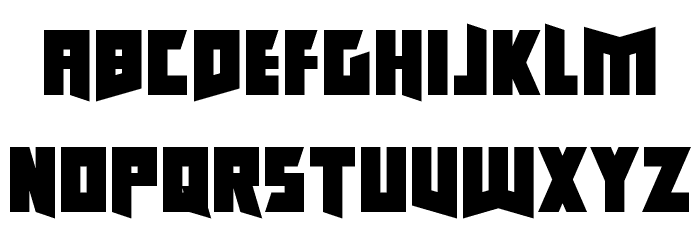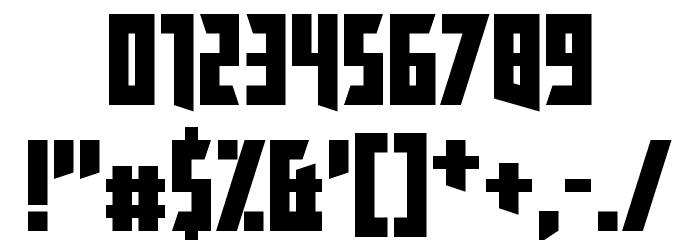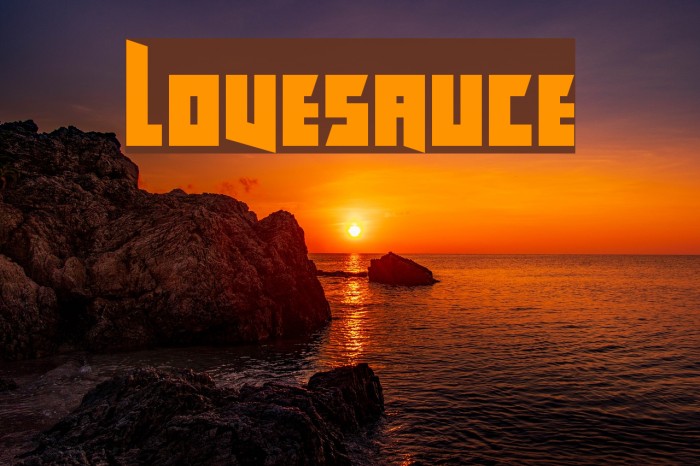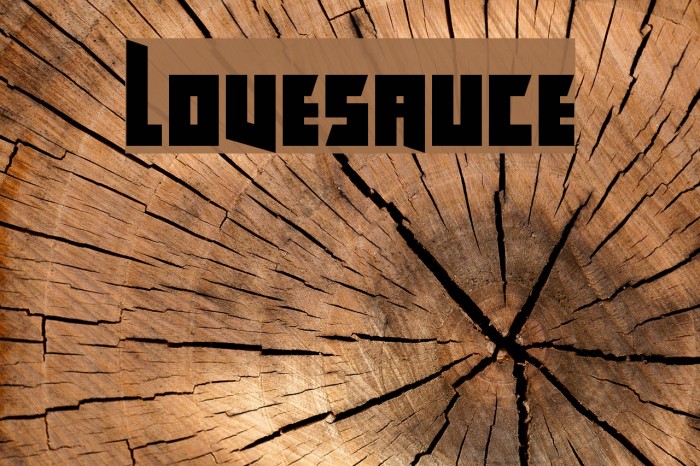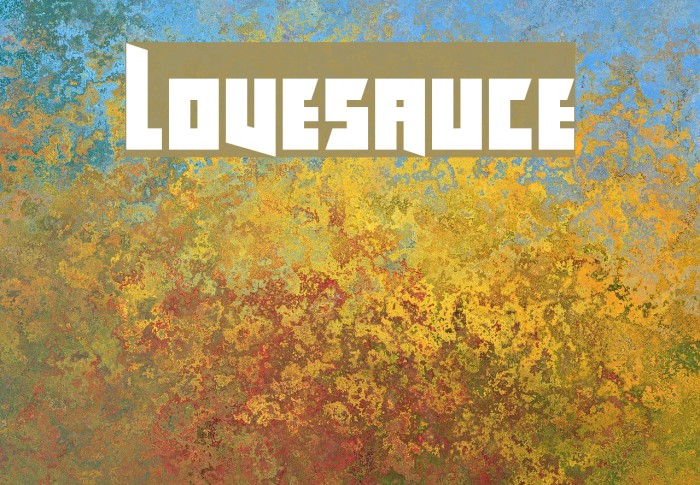
Lovesauce Font
This bold and striking font features a geometric and angular design, characterized by sharp edges and a blocky appearance. The uppercase and lowercase letters maintain a consistent style, with a strong emphasis on vertical and horizontal lines. The numbers and special characters follow the same bold and angular aesthetic, ensuring a cohesive look across all characters. The font's unique style makes it stand out, ideal for projects that require a strong visual impact. Its design is reminiscent of modern digital or futuristic themes, making it suitable for creative and innovative applications.
A bold, angular font with a geometric and futuristic style.
- Proposed Projects: Ideal for video game titles, movie posters, branding for tech companies, and any project needing a modern, impactful look.